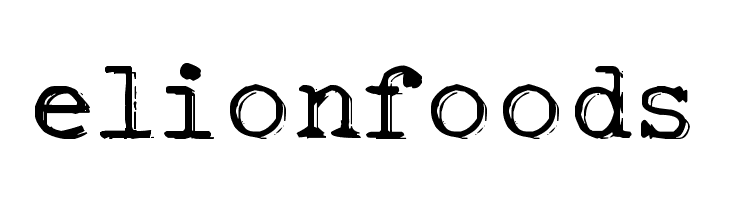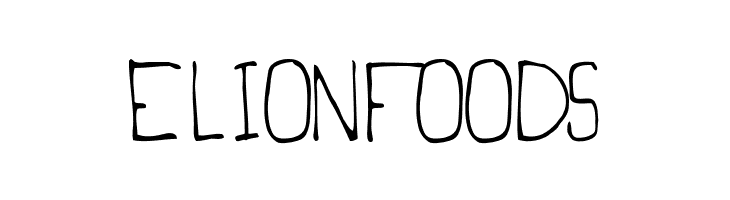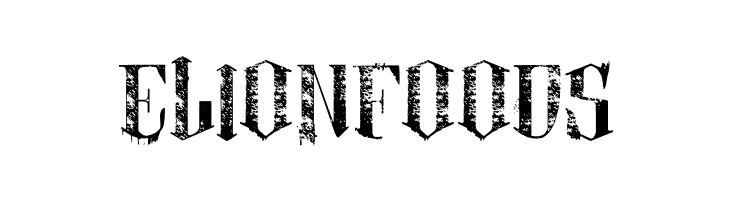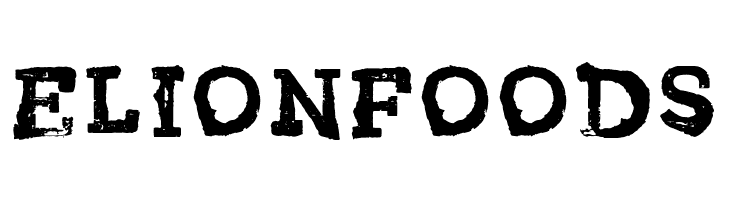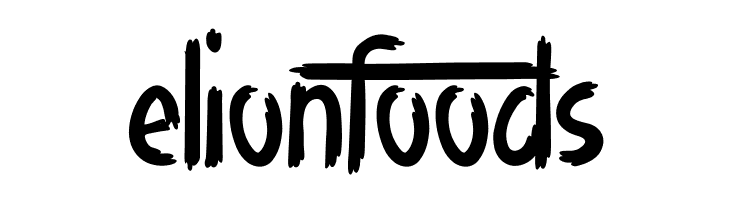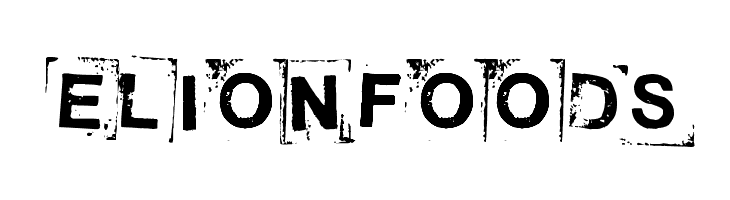
A vintage, typewriter-inspired font with a distressed, shaky appearance.
A playful, hand-drawn font with irregular, organic lines.
A playful, hand-drawn style font with bold, sketch-like outlines.
A decorative, distressed font with rough, textured edges and a vintage, grunge aesthetic.
A bold, distressed font with a grungy, textured style.
A rugged, distressed font with a bold, textured appearance.
A bold, brush-like font with expressive and dynamic strokes.
A distressed, grunge-style font with a vintage, stamped appearance.
A chaotic, ransom note-style font with mixed typefaces and sizes.
A bold, eclectic display font with a ransom note style and modern twist.